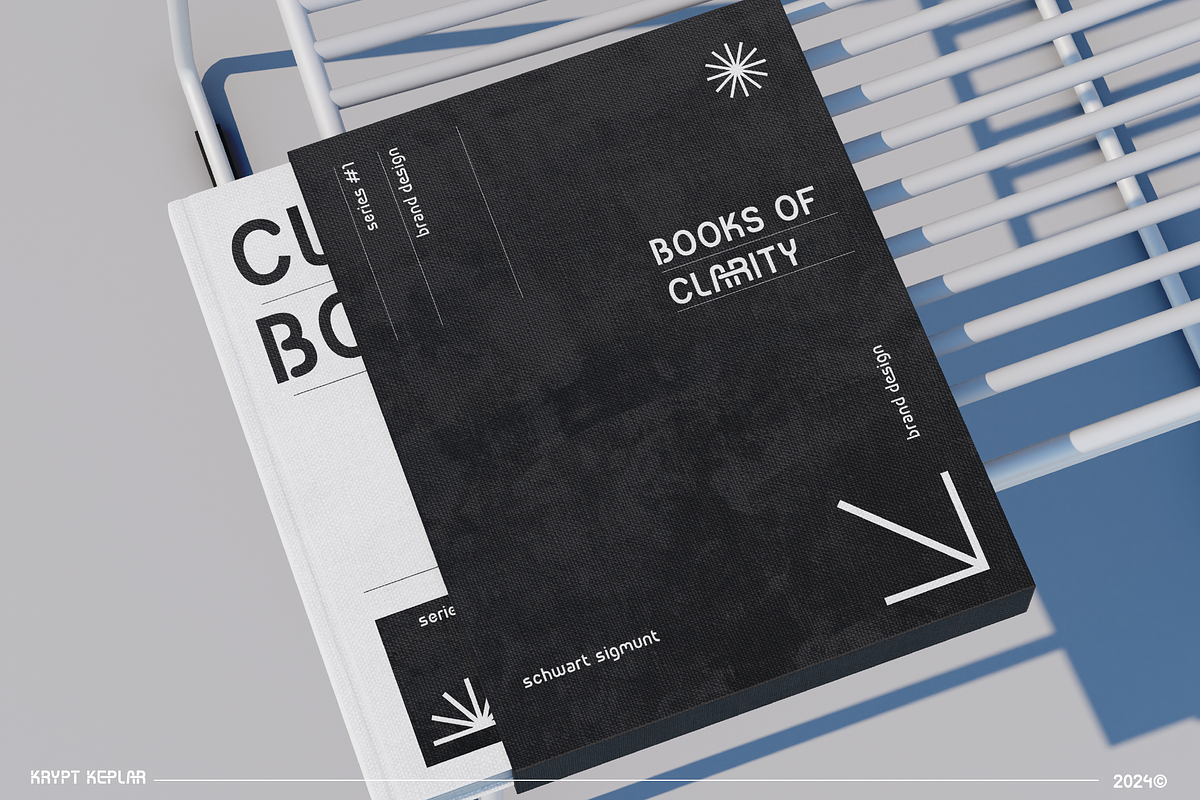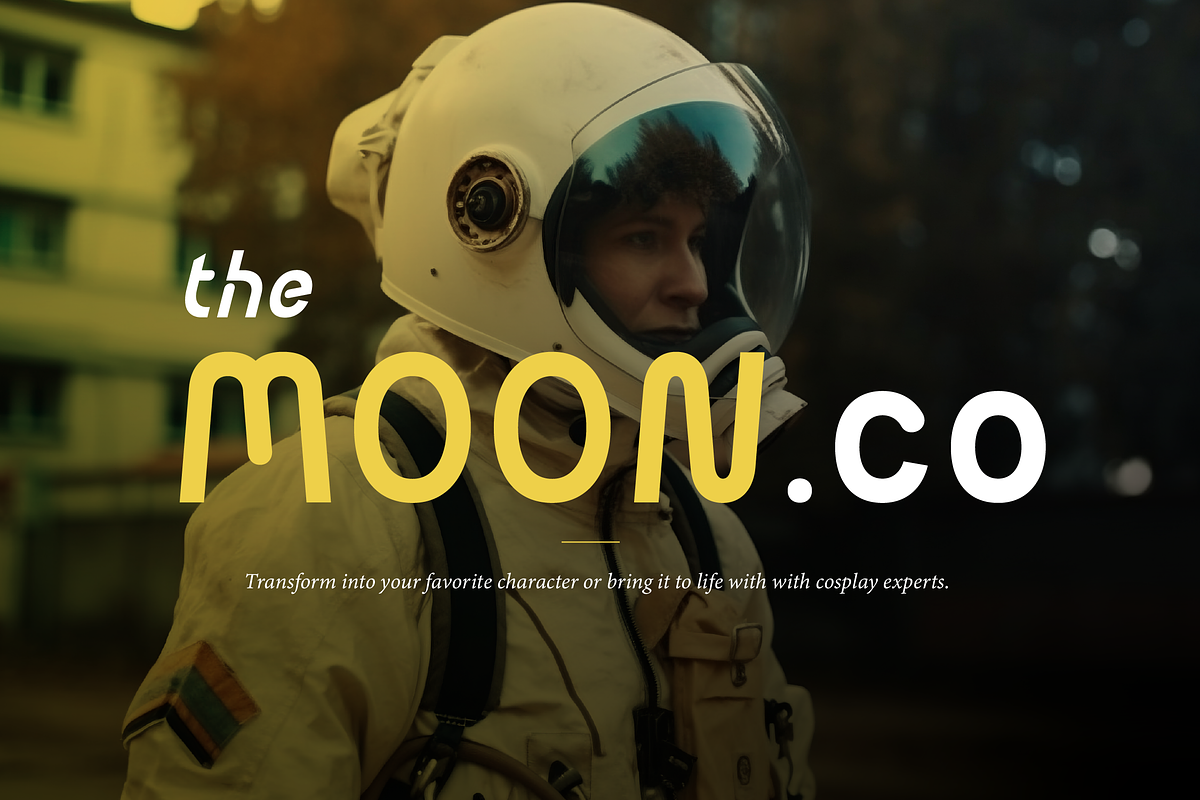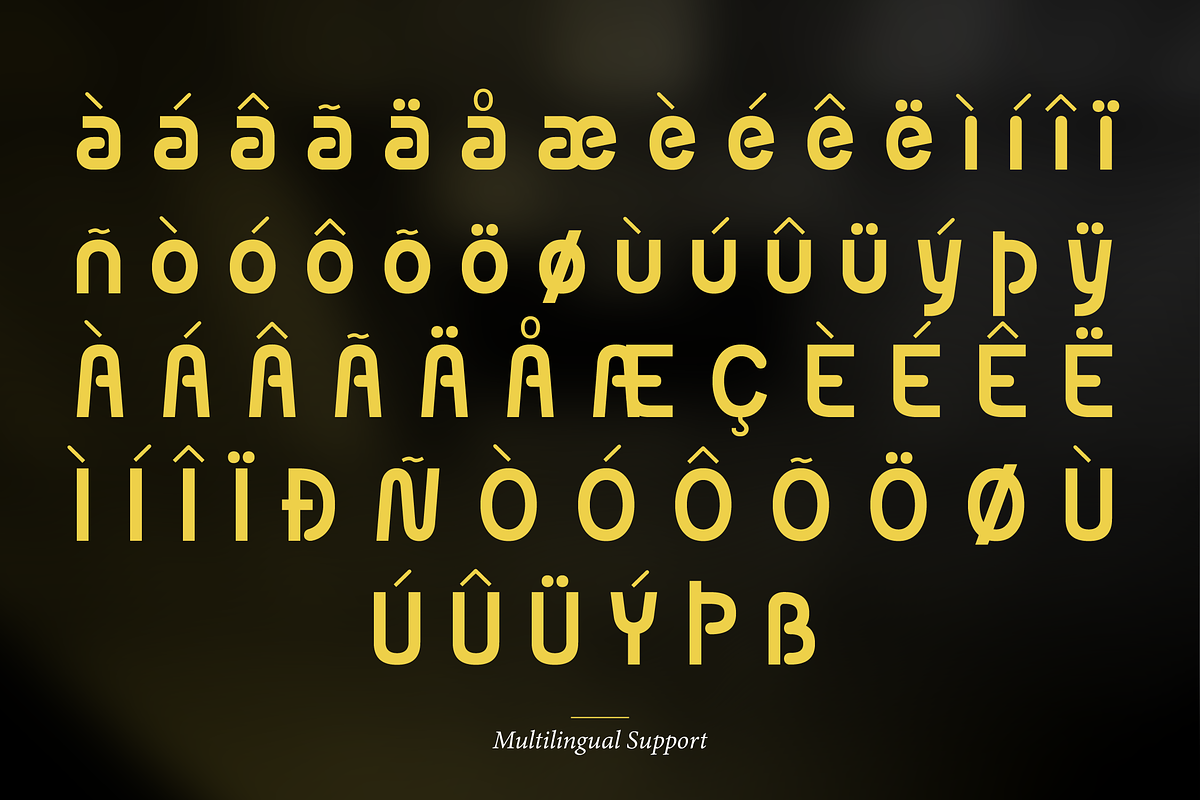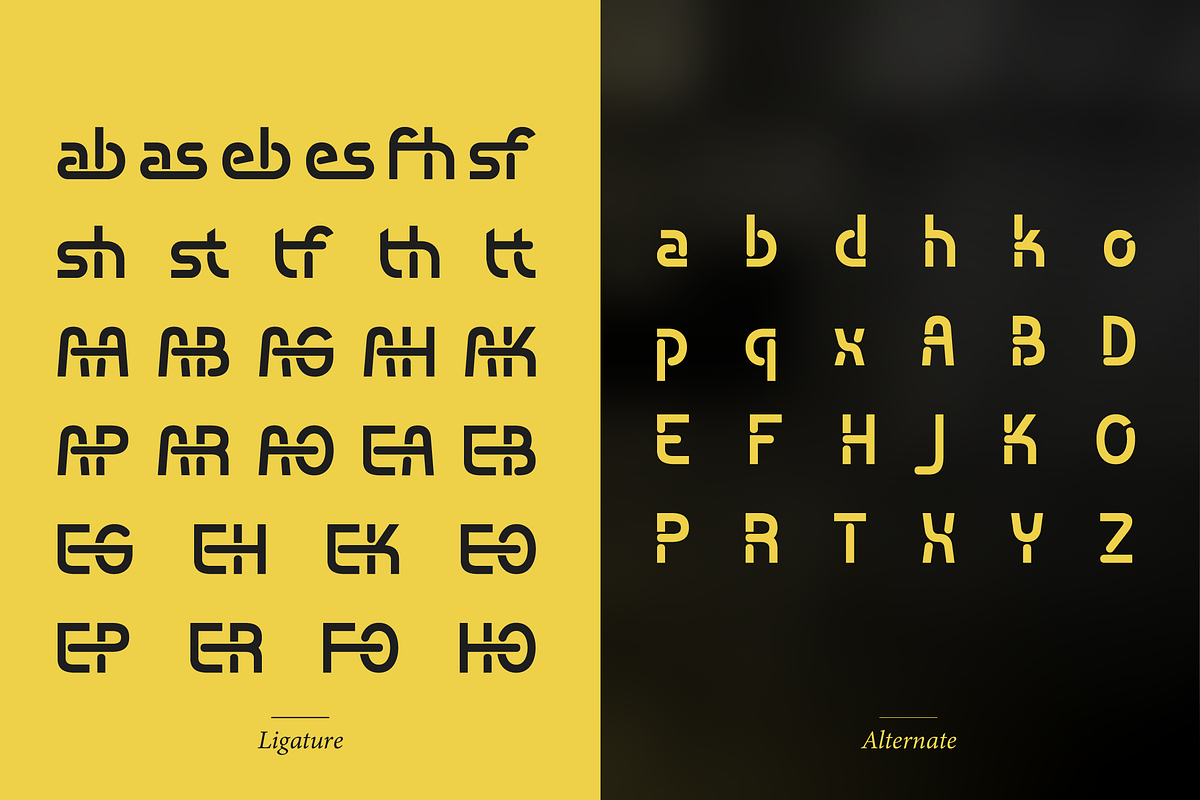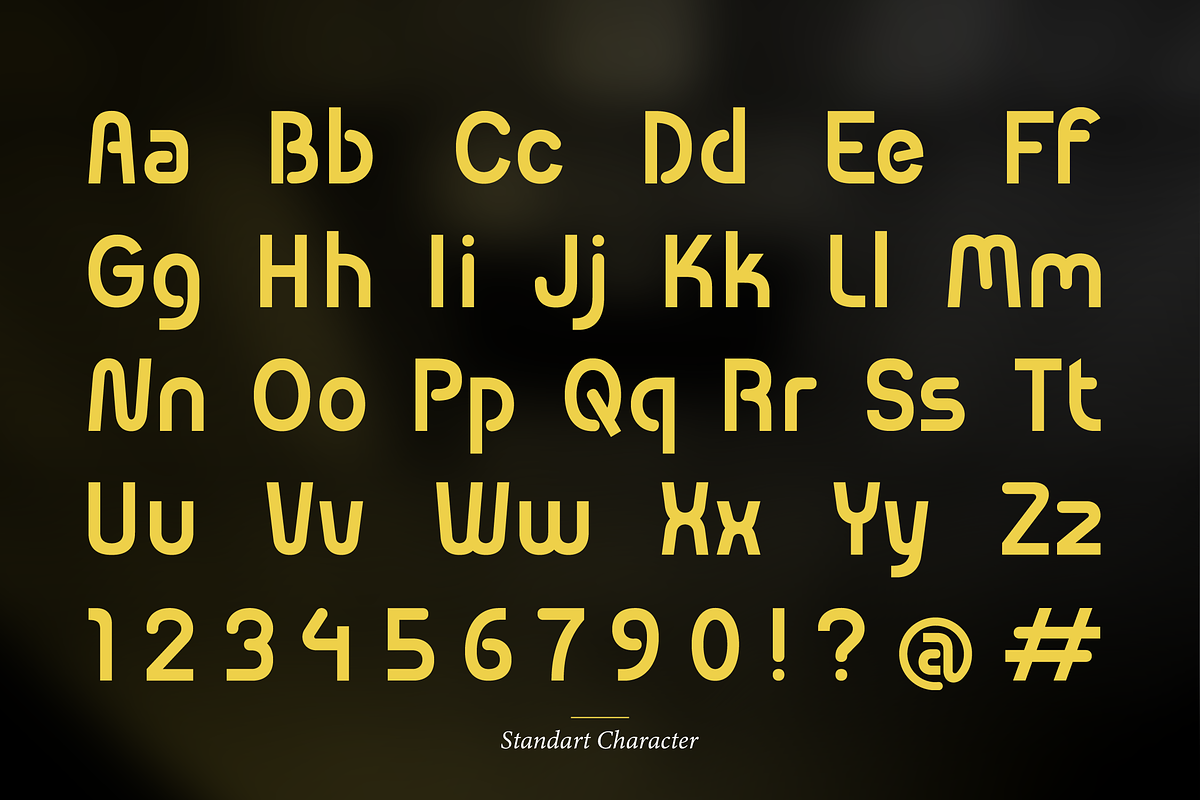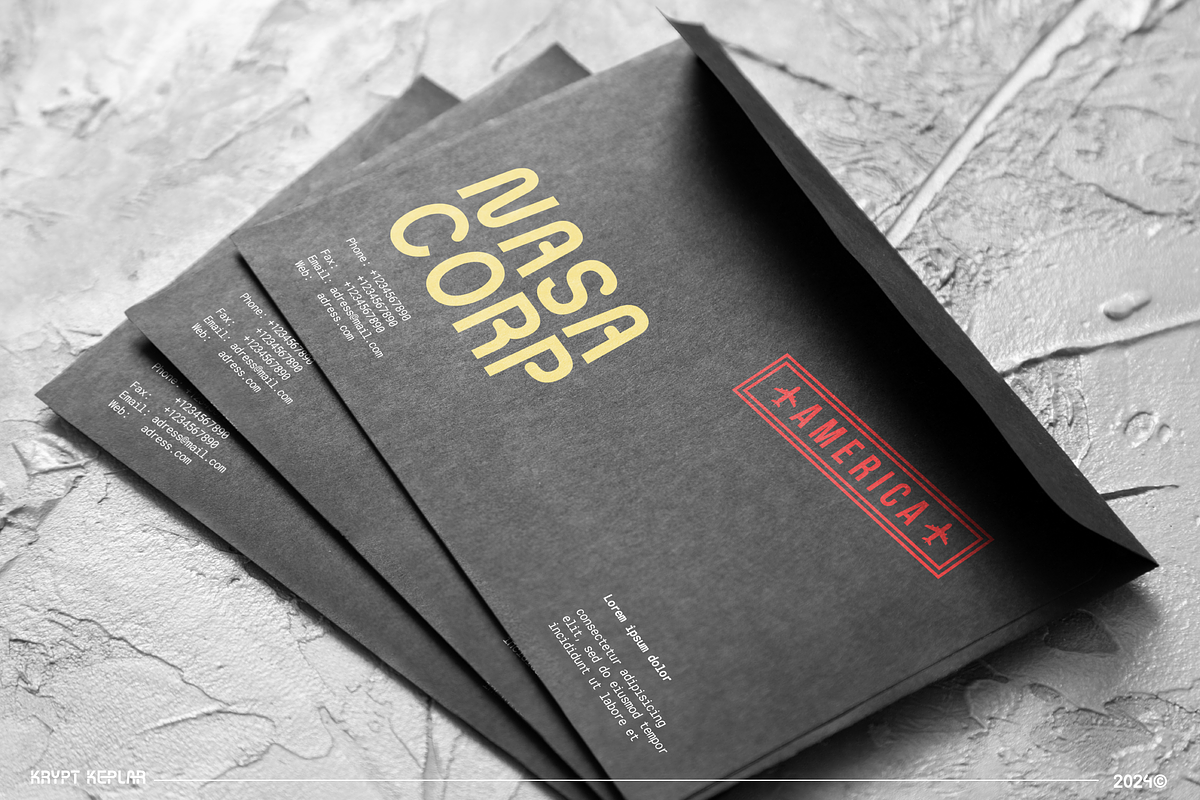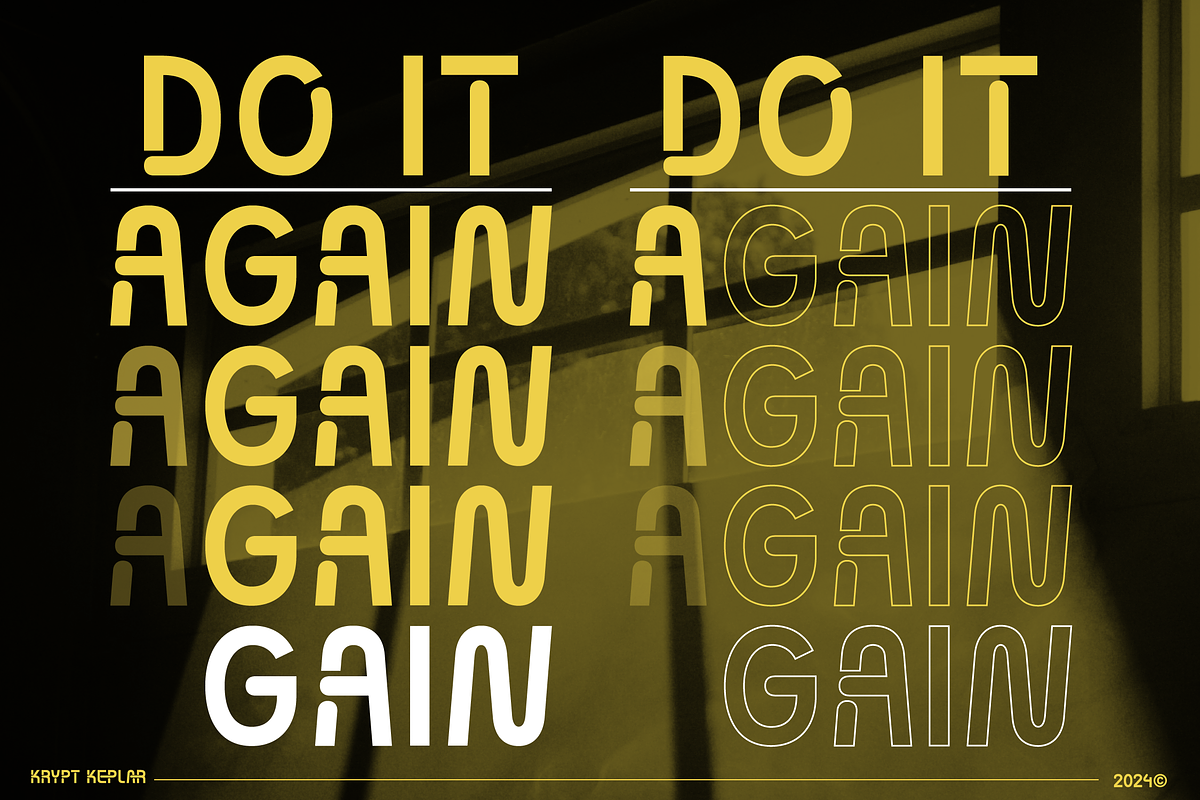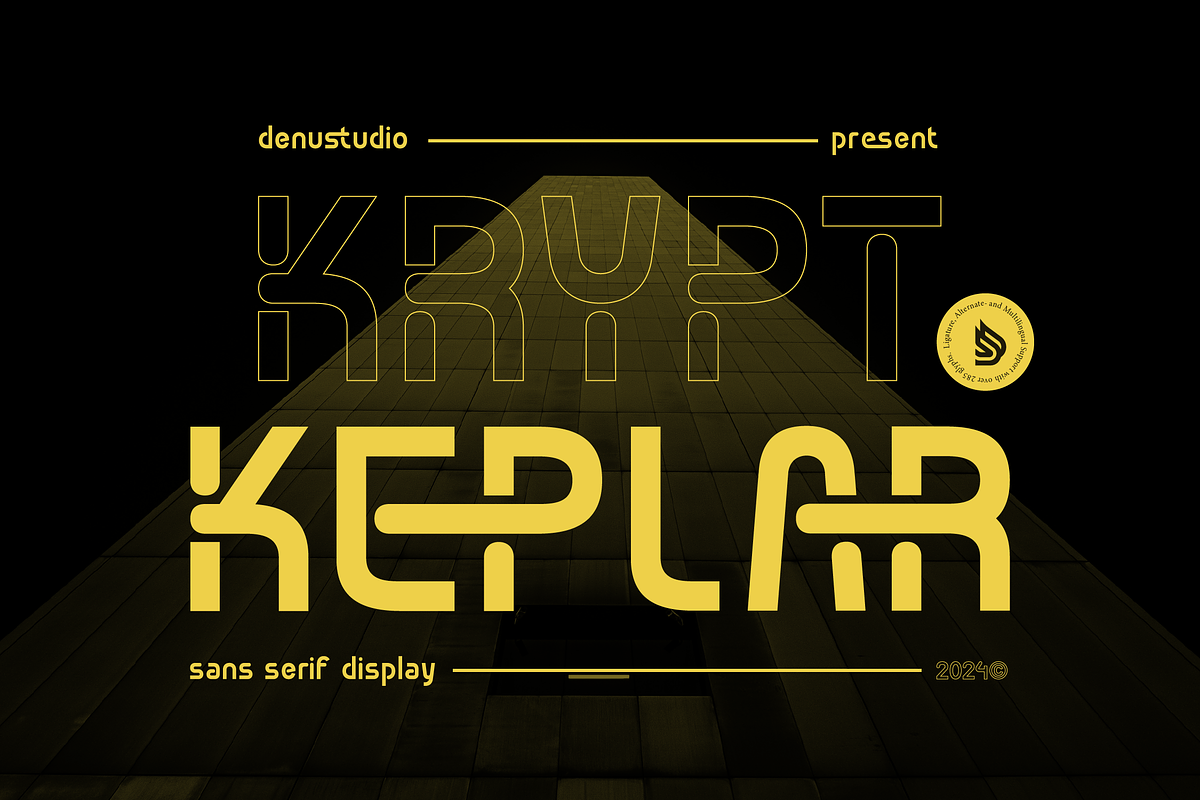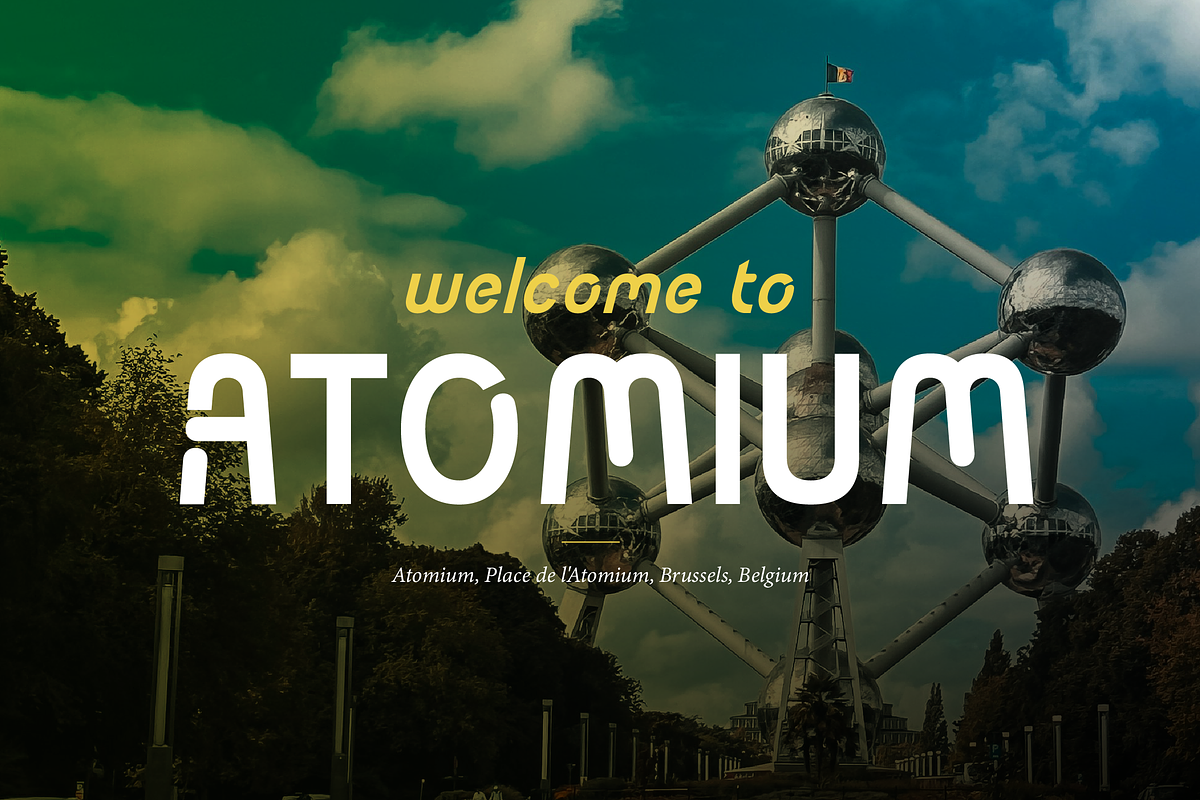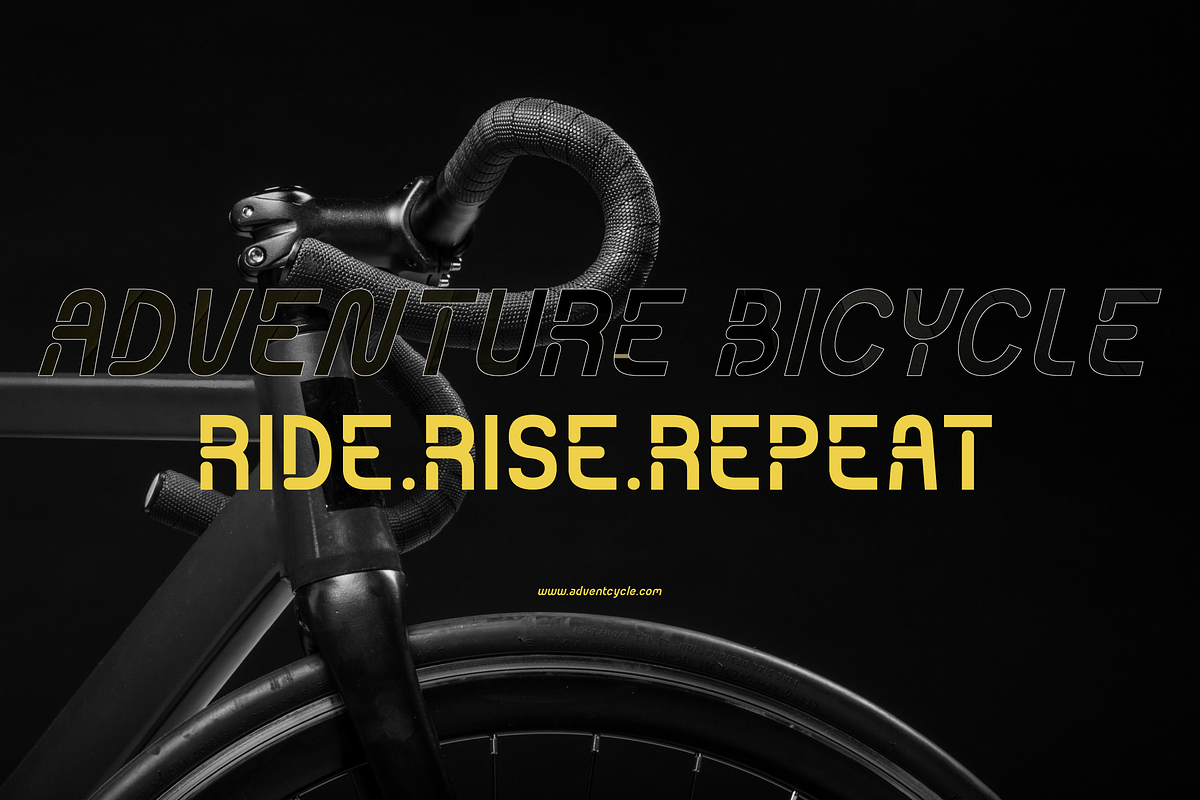
Krypt Keplar | Sans Serif Display
Krypt Keplar | Sans Serif Display, from Denustudios, suitable for any projects such as: logos, branding projects, homeware designs, product packaging, mugs, quotes, posters, shopping bags, t-shirts, book covers, name card, invitation cards, greeting cards, label, photography, watermark, special events, and all your other lovely projects that need a Sans Serif Display taste.